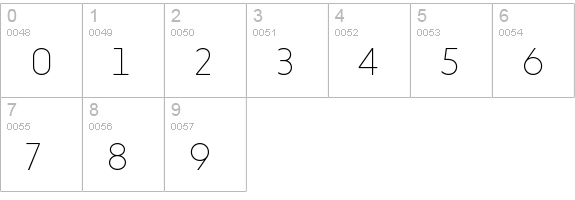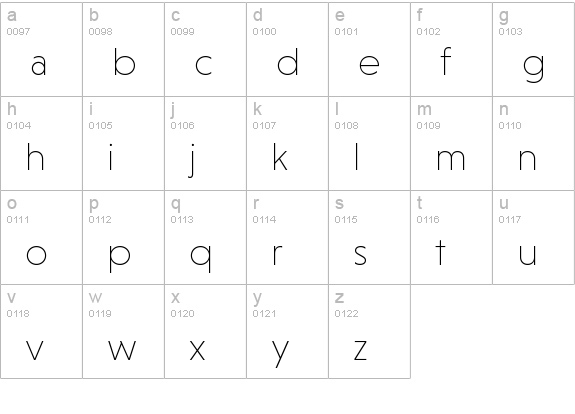
Niveau Grotesk ExtraLight is an airy, ultra-refined variant in the Niveau typeface family \xE2\x80\x94 well suited to minimalist headlines and refined display use.
Niveau Grotesk ExtraLight font is a sleek and modern typeface that exudes sophistication and elegance. With its delicate and minimalist design, this font is perfect for adding a touch of refinement to any project. The clean lines and subtle curves of Niveau Grotesk ExtraLight make it ideal for a wide range of applications, from branding and advertising to editorial design and web content. What sets Niveau Grotesk ExtraLight apart is its versatility and readability. Whether used in large headlines or small body text, this font maintains its clarity and legibility, ensuring that your message comes across loud and clear. Its extra light weight adds a sense of airiness and delicacy to your design, making it a truly standout choice for any project. And the best part? Niveau Grotesk ExtraLight is available for free download at FontsMarket.com. Yes, you read that right - you can access this premium font at no cost, making it an excellent choice for designers on a budget or anyone looking to elevate their work with a high-quality typeface. Don't miss out on this fantastic opportunity to enhance your designs with Niveau Grotesk ExtraLight - download it for free today!